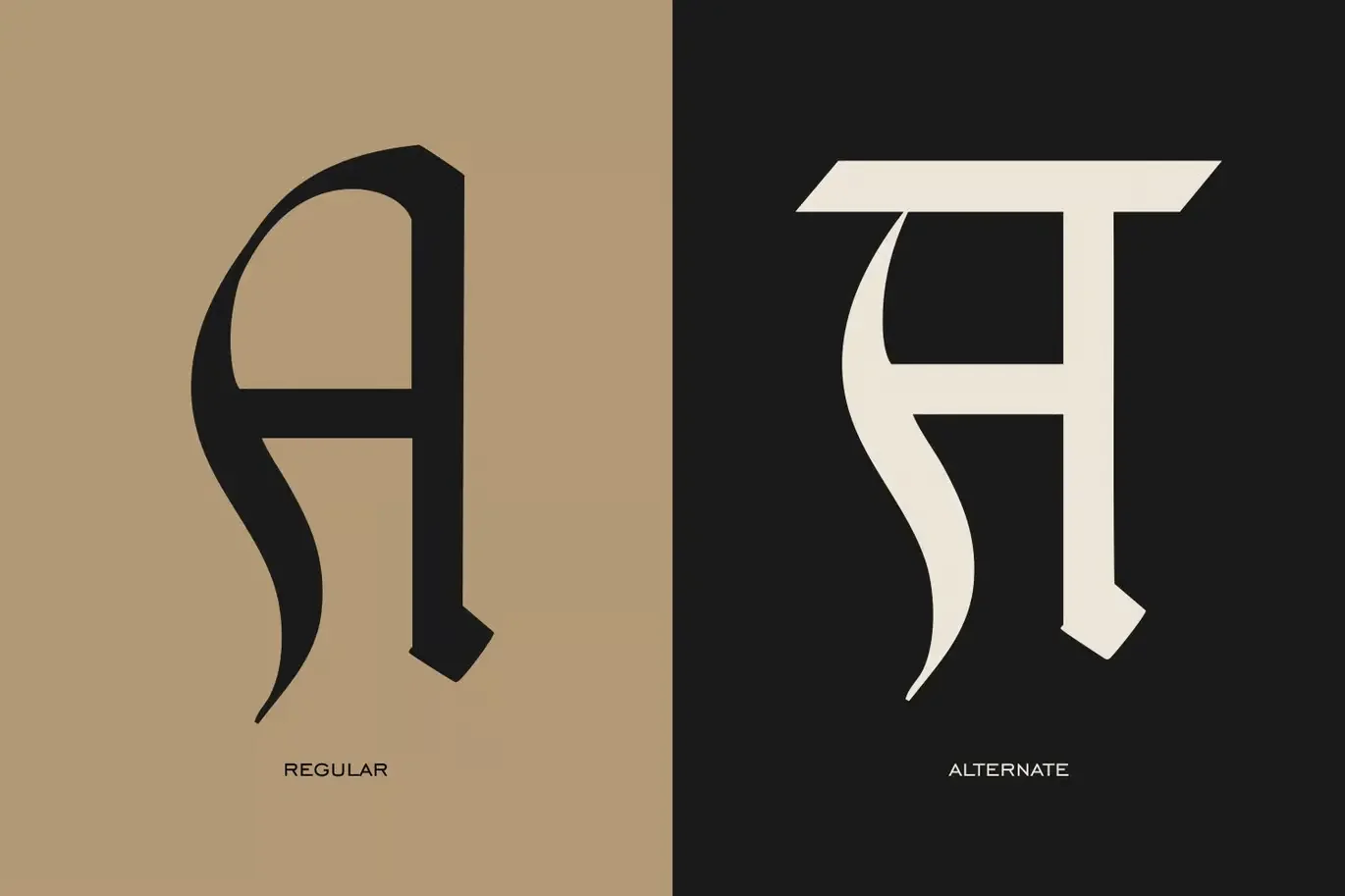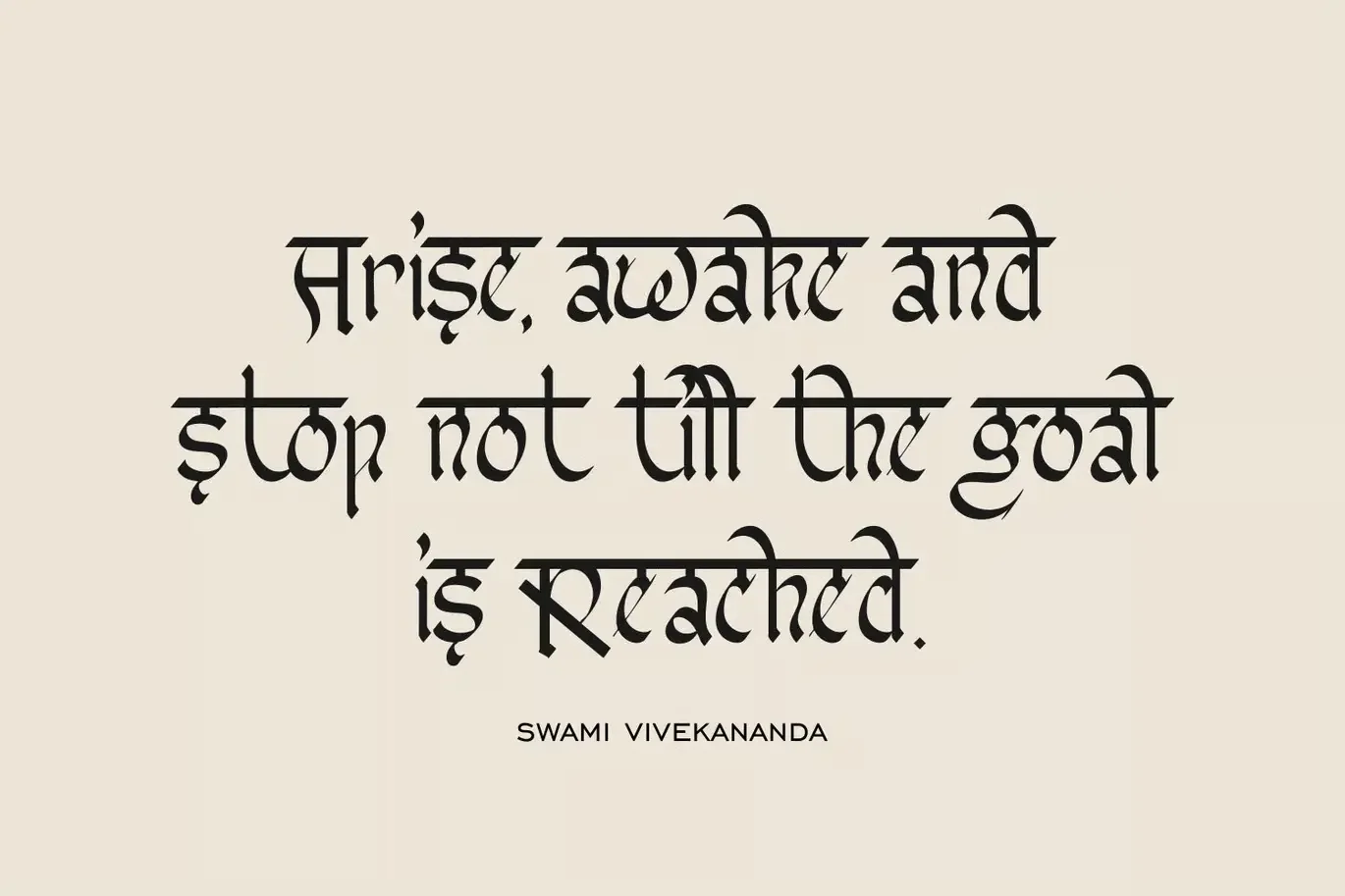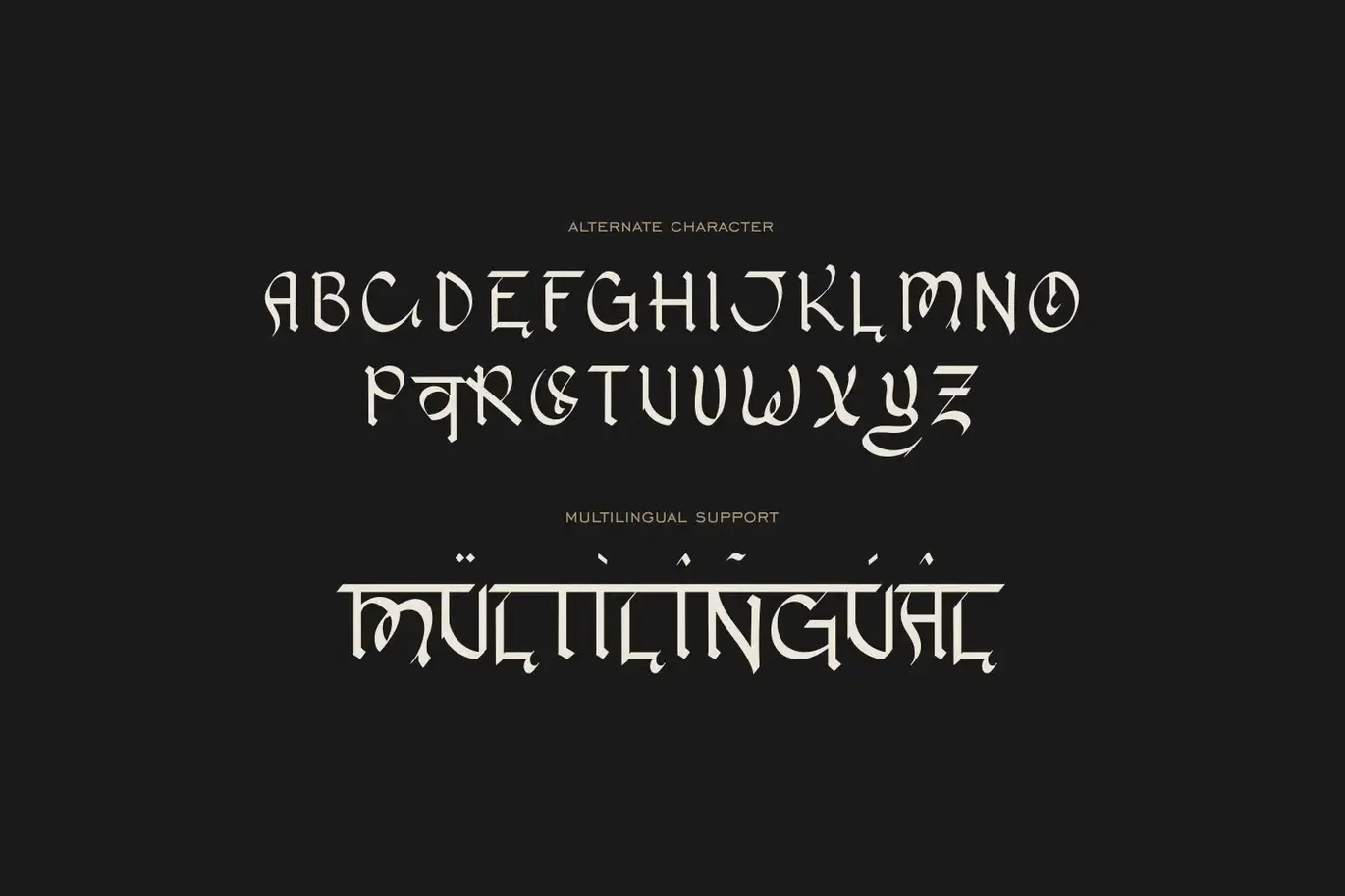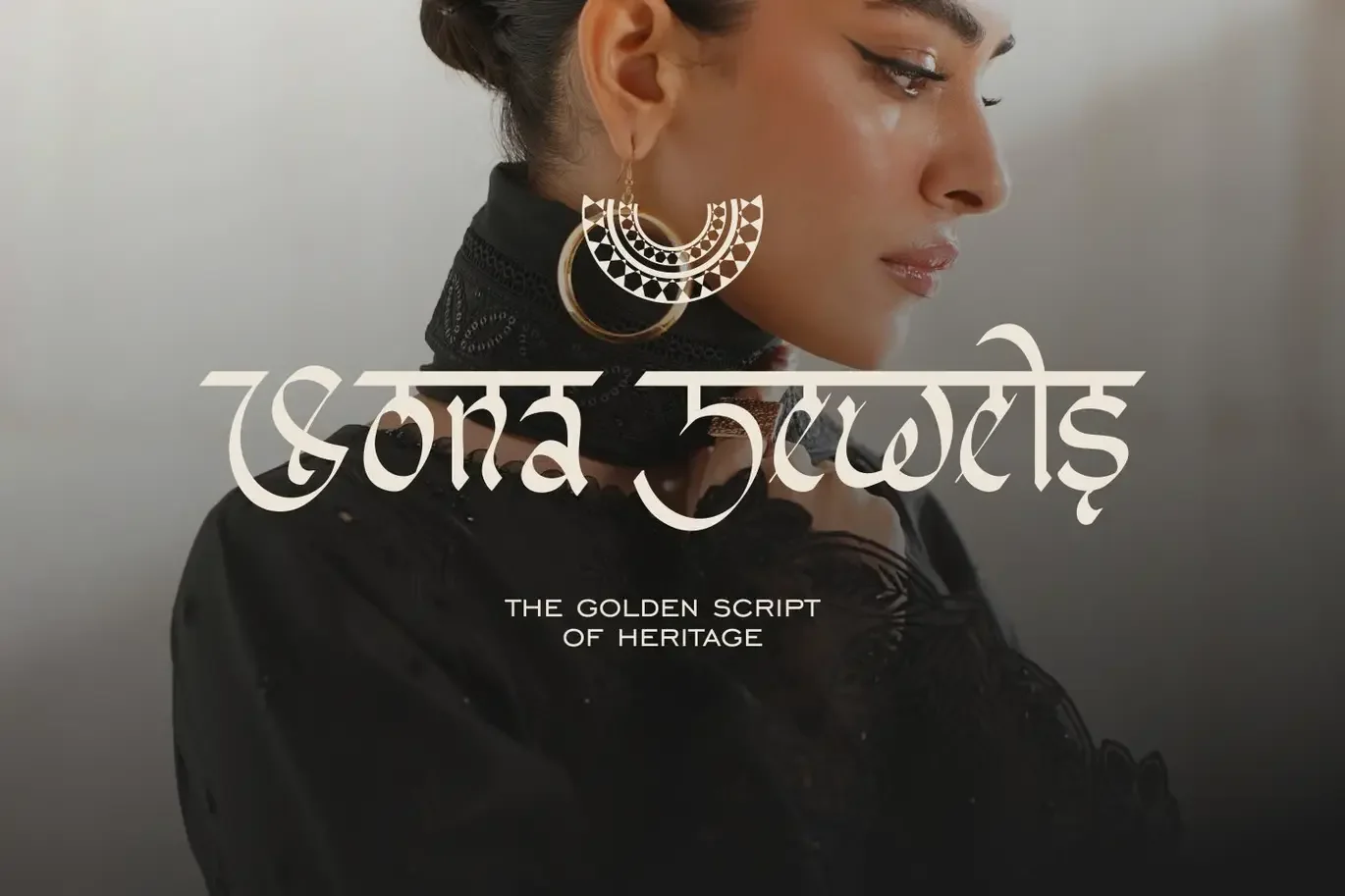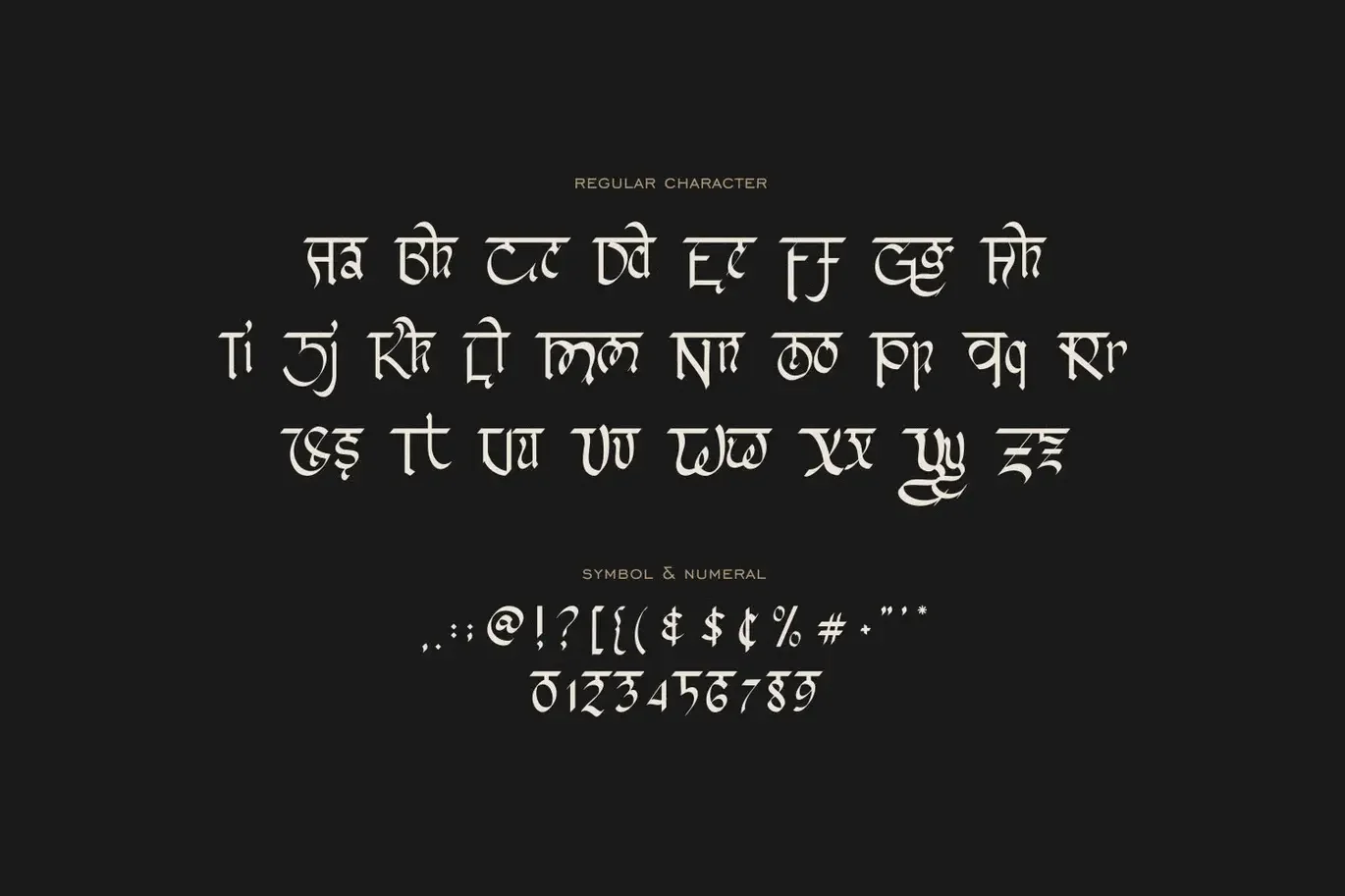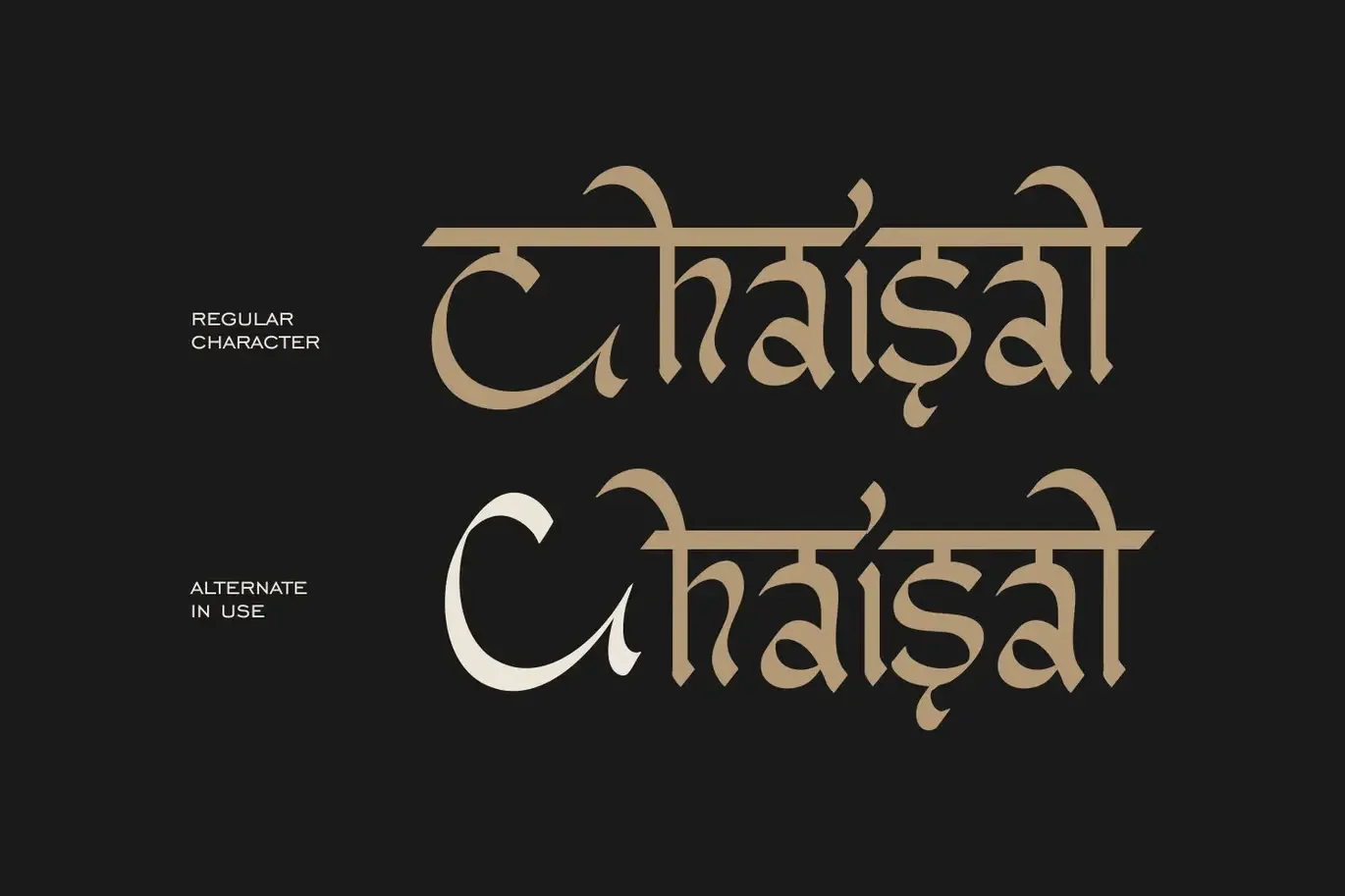
Shavanshi Rajdhani Font is a sans-serif typeface designed to solve a common design problem: keeping text readable and consistent across modern digital layouts. Designers working on branding, UI design, and web interfaces often need a font that looks structured without feeling rigid. Shavanshi Rajdhani addresses this need with clean geometry and balanced spacing.
This font belongs to the sans-serif category with a modern, slightly technical tone. Its letterforms feature straight strokes, open counters, and minimal contrast between thick and thin lines. Curves are controlled rather than decorative, which helps maintain clarity at small sizes. The uniform stroke weight supports screen readability and reduces visual noise in dense layouts.
Shavanshi Rajdhani works well for branding systems, website headings, UI components, mobile apps, and digital dashboards. It is also suitable for body text when a clean and neutral appearance is required. Designers often pair it with a serif font for editorial layouts or a lighter sans-serif for supporting text to create hierarchy.